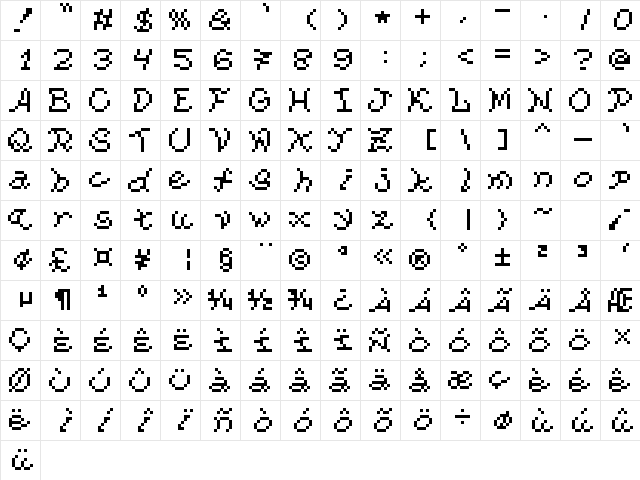
AdventurersScrib Medium
Design Context for AdventurersScrib Typeface
AdventurersScrib is a composed and adaptable typeface that performs quietly and consistently across a wide range of design contexts.